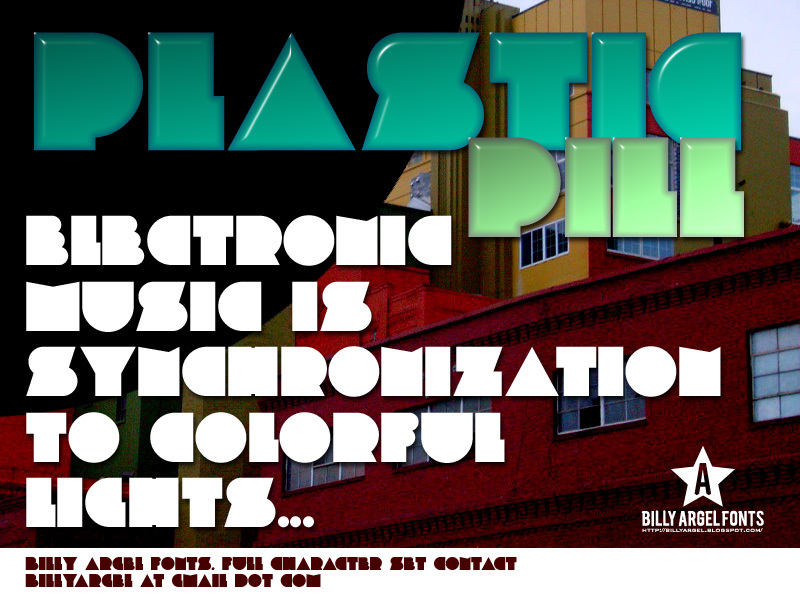
PLASTIC PILL
Plastic Pill is a bold, attention-grabbing display font that exudes a distinctive techno aesthetic. Designed by Billy Argel, this font seamlessly blends sharp angles and clean lines, creating a sleek and futuristic visual identity. Its striking letterforms command attention, making it an excellent choice for headlines, posters, and branding elements that seek to convey a sense of modernity and technological sophistication.
The font's bold weight and compact structure lend it a powerful presence, well-suited for applications where impact and legibility are paramount. From digital interfaces to packaging designs, Plastic Pill's versatility allows it to shine in a variety of contemporary design contexts, effortlessly capturing the essence of a high-tech, industrial-inspired aesthetic.